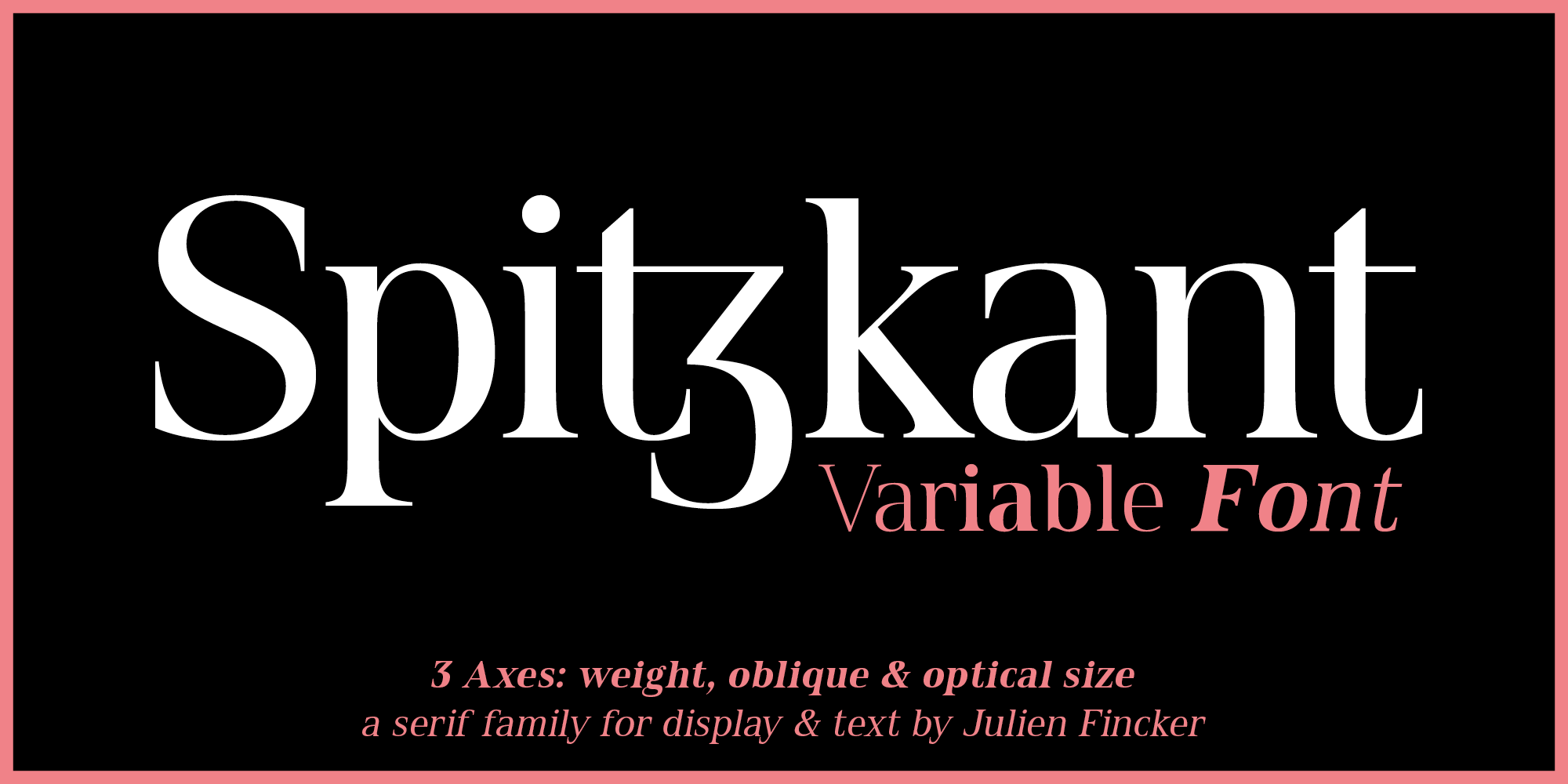
Discover the versatile Spitzkant Variable Font Free Download, a modern serif typeface designed by Julien Fincker that blends sharp contrasts with elegant, rounded forms. This font is perfect for creating a bold, expressive aesthetic. However, please note that you must purchase this font for commercial use. For testing purposes, you can download it for free and explore its dynamic style.
The Spitzkant Variable Font is ideal for various applications, such as designing striking logos, crafting impactful headlines, creating sophisticated packaging, or enhancing editorial layouts and branding materials. Its variable format, with three axes (weight, oblique, and optical size), makes it a top choice for responsive web design, typography animations, and projects needing a tailored, high-contrast look.
Why is the Spitzkant Variable Font Free Download so exciting? Its pointed, sharp serifs paired with fine, rounded shapes create a unique, expressive character, perfect for branding, advertising, and editorial work. With over 850 glyphs, including 95+ ligatures, small caps, and stylistic alternates, it supports over 200 Latin-based languages, ensuring global versatility. The variable font technology combines multiple styles into a single file, offering flexibility and smaller data sizes for web developers.
The Spitzkant Variable Font includes a single file with adjustable styles via weight, italic, and optical size axes, providing unmatched flexibility for diverse design needs. It’s ideal for both print and digital media, from bold headlines to readable body text.